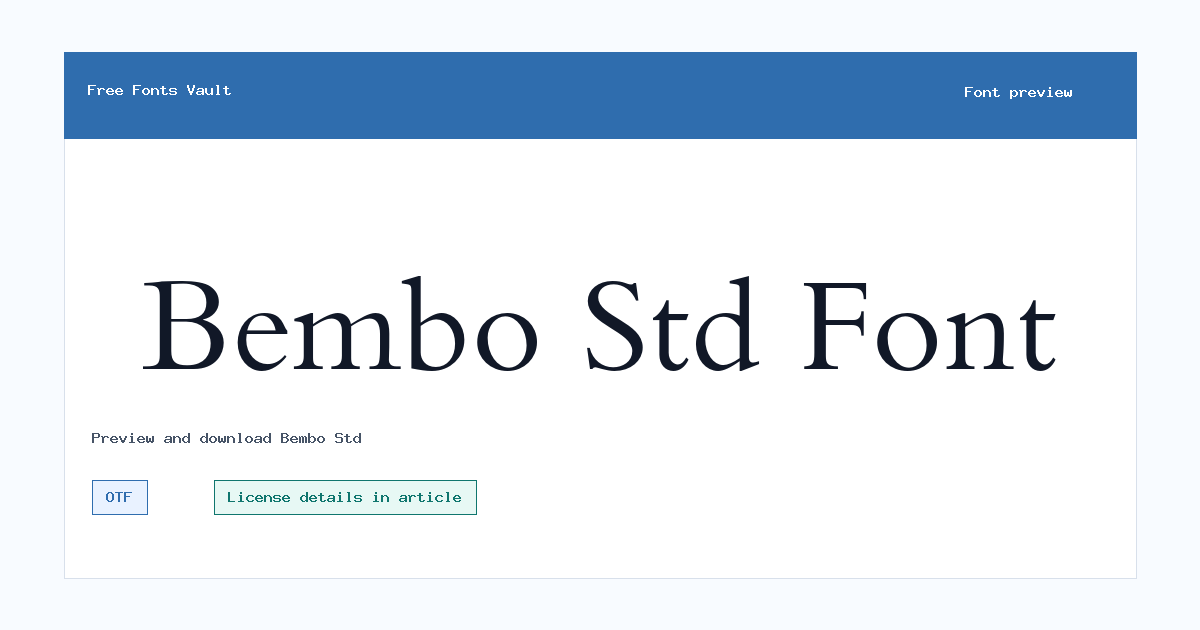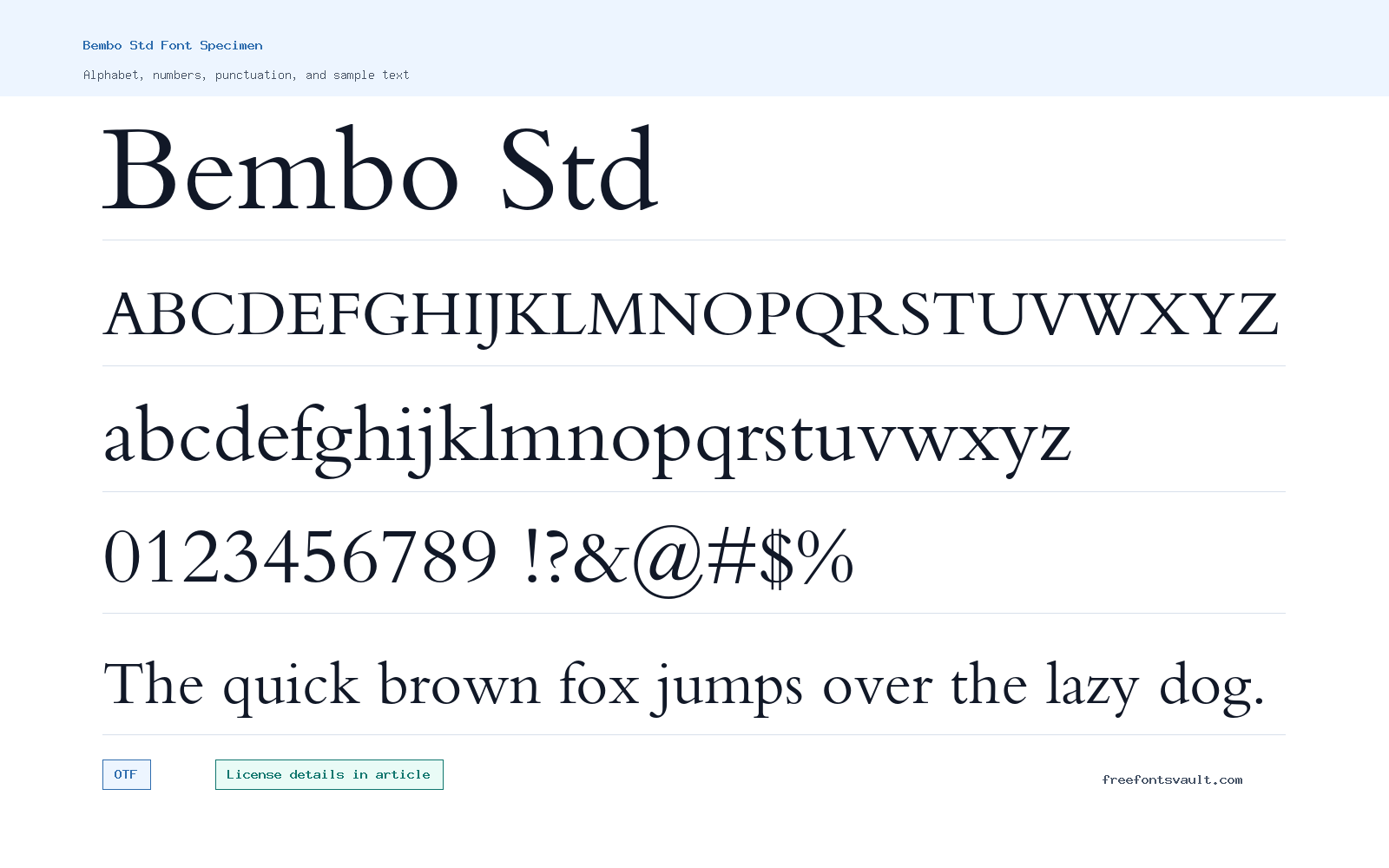
Bembo Std
- Designer Stanley Morison, Monotype Staff
Bembo Std is a classic old-style serif with a calm, bookish feel. Its regular OTF style is useful for testing refined serif typography in headings, short passages, and editorial-style layouts.
Bembo is rooted in early roman type history. Microsoft Typography describes the Bembo design as an old-style humanist serif originally cut by Francesco Griffo around 1495 and revived under Stanley Morison for Monotype in 1929. That background helps explain its traditional serif rhythm: it feels literary, balanced, and better suited to thoughtful reading than to loud display work.
The Bembo Std file here is a regular OpenType font with normal style and 400 weight. Try it in the preview with book titles, author names, article headings, pull quotes, and short body samples. Because this listing only includes the regular style, test carefully if your design needs bold, italic, small caps, or a full professional family.
- Old-style humanist serif character with a traditional book typography feel
- Works well for refined headings, editorial text, literary titles, and short reading samples
- Best tested at body-text and title sizes because the available file is a single regular style
- Book titles and literary page mockups
- Editorial headings and pull quotes
- Classic serif branding studies
- Invitations, certificates, and formal text settings
- Short body copy previews where a traditional serif tone is needed
The font credit lists Stanley Morison and Monotype Staff. Adobe Fonts identifies Stanley Morison as a typographer and printing historian associated with Monotype, while Microsoft Typography describes Morison’s role in the 1929 revival of Bembo.
Use the preview to compare Bembo Std at small text sizes and larger title sizes. Its classic serif shape can bring warmth and restraint, but a single regular style may not be enough for a full brand system or long document design. Pair it with a clean sans serif if you need contrast, and avoid forcing it into very bold poster layouts unless the spacing and size still feel clear.
What type of font is Bembo Std?
Bembo Std is an old-style serif font. It has a traditional, literary look that suits editorial and book-inspired typography.
Who designed Bembo?
The font credit lists Stanley Morison and Monotype Staff. Microsoft Typography also connects the Monotype revival of Bembo to Stanley Morison in 1929.
Is Bembo Std good for body text?
It can work well in traditional reading settings, but test it at your exact size and spacing. The single regular file may limit hierarchy if you need bold or italic styles.